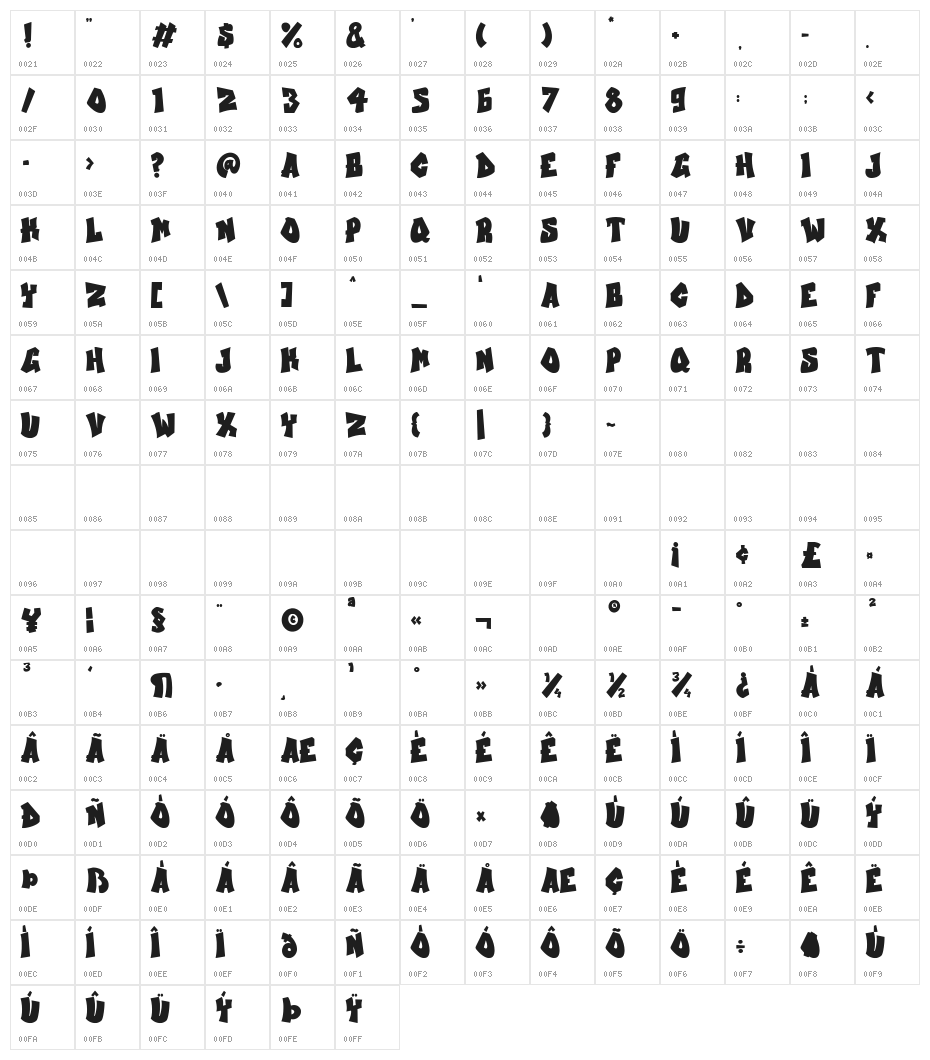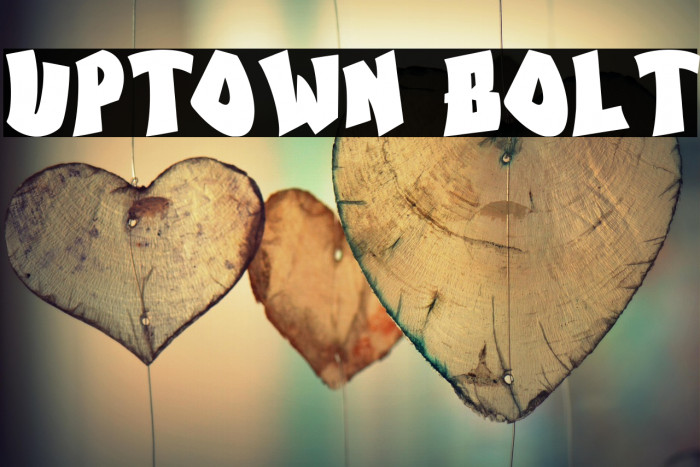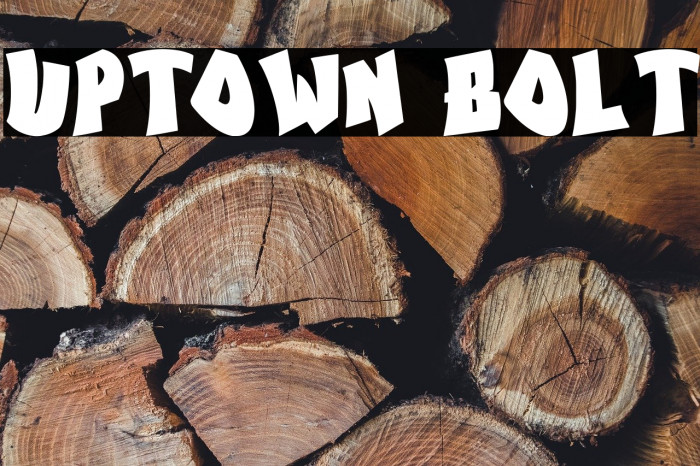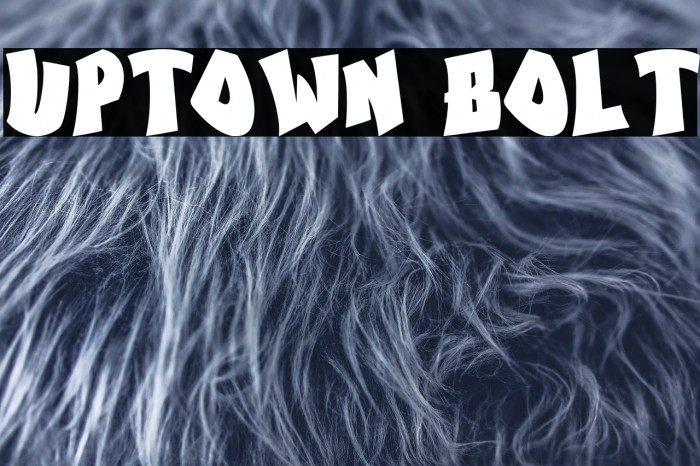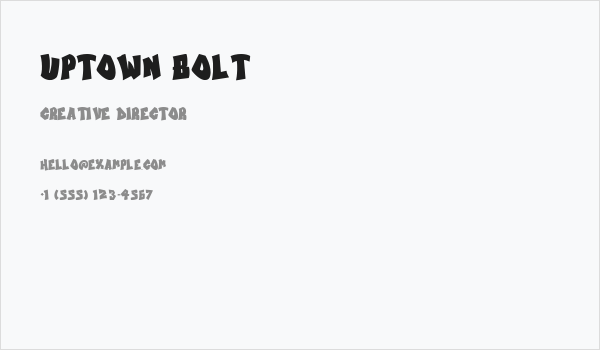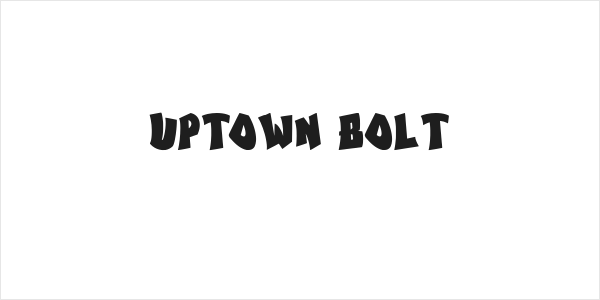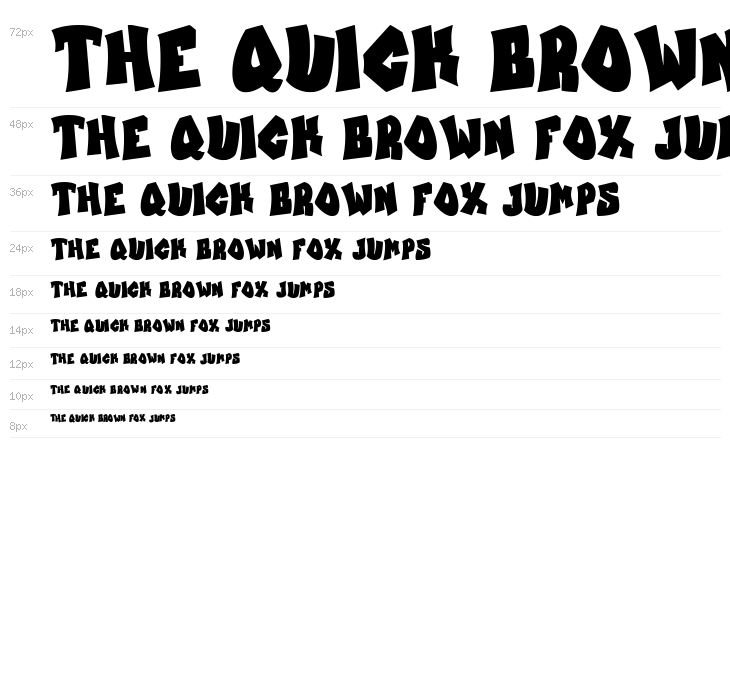
Uptown Bolt Font
Uptown Bolt Description
This font features a bold and dynamic design with sharp, angular edges and a playful, energetic vibe. The characters are heavily stylized, giving them a unique and eye-catching appearance. The uppercase and lowercase letters maintain a consistent style, with exaggerated curves and angles that create a sense of movement. The numbers and special characters follow the same design principles, ensuring a cohesive look across all elements. This font is ideal for projects that require a strong visual impact and a modern, edgy aesthetic.
| Proposed Projects | Ideal for posters, music album covers, event flyers, and branding that requires a strong visual impact. |